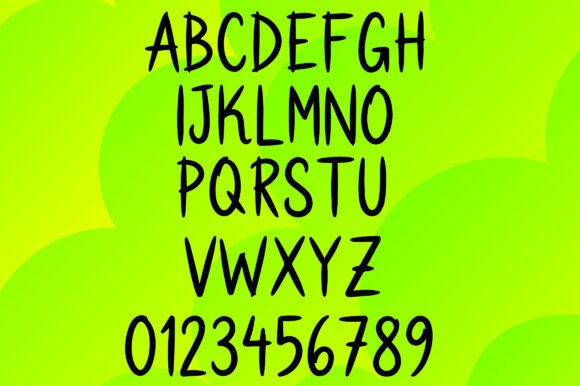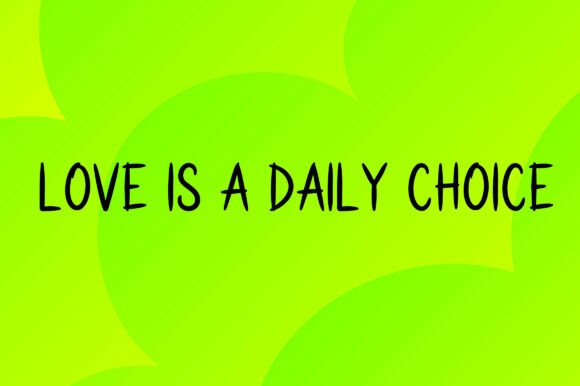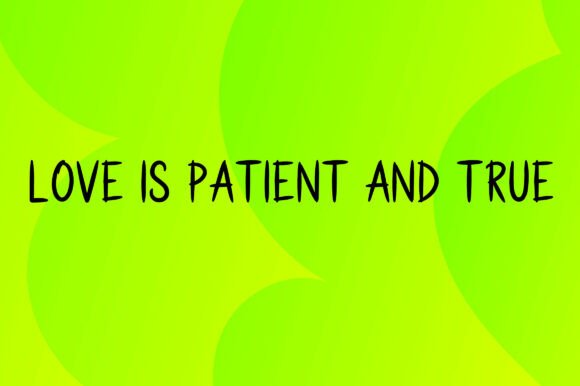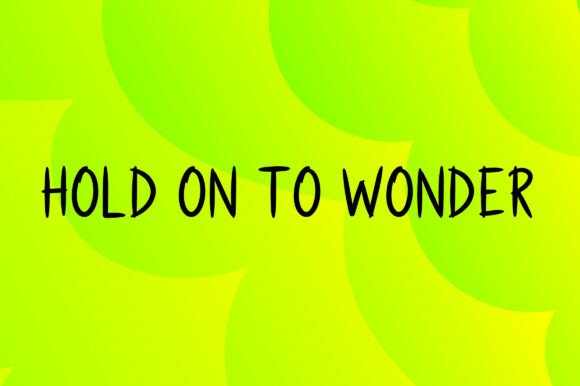
Where Creativity Meets Whimsy: Introducing Dalia Font
Have you ever stared at a blank canvas, struggling to find the perfect font to bring your design to life? That’s where I find myself, more often than not. But then, something magical happens – a spark of creativity ignites, and suddenly, the perfect font appears. For many designers, that perfect font is Dalia Font, a playful display font that adds a touch of whimsy to any design.
Dalia Font is a hand-drawn masterpiece, featuring slim elongated shapes, pointed tapered strokes, and crossbar details that create a lively, quirky, and eye-catching look. Whether you’re designing a brand, poster, or social media graphic, Dalia Font is the perfect choice for making a memorable statement. Its versatility and charm make it a valuable asset for designers looking to add a unique touch to their work.
Dalia Font Key Features
- Font Family: Dalia is a sans-serif font family designed for digital use.
- Unique Characteristics: Dalia features a modern and clean design, with a focus on legibility and readability in digital environments.
Dalia Font Review
I recently had the chance to work with the Dalia Font, and I must say it’s a lovely addition to any design project. ✨ Here are some of its strengths:
- It’s incredibly legible, making it perfect for body text or even headlines.
- The font’s subtle flair and curves give it a charming, elegant feel.
- It’s highly versatile, working well in both modern and classic designs.
However, there are a few limitations to keep in mind: ⚠️
- The font may not be the best choice for titles or headings that require bold, attention-grabbing emphasis.
- Some users have reported issues with the font’s rendering at very small sizes.
- It’s not particularly unique or groundbreaking, so you may find it’s been used before in similar designs.
Overall, I’d give the Dalia Font 3.5 out of 5 stars. It’s a solid, dependable choice for many design projects, but it may not stand out in particularly crowded or competitive fields.
Tips for Getting the Most Out of Dalia Font
Use Dalia font in combination with bold or italic styles to create visual hierarchy and emphasis in your designs. Experiment with different font sizes and line spacing to achieve a balanced and harmonious layout. Finally, pair Dalia font with a neutral background color to let the font be the focal point of your design.
Dalia font is commonly used for:
1. Branding materials, such as logos and business cards.
2. Invitations and event materials, such as menus and programs.
3. Professional presentations, such as reports and proposals.
4. Typography-based designs, such as posters and flyers.